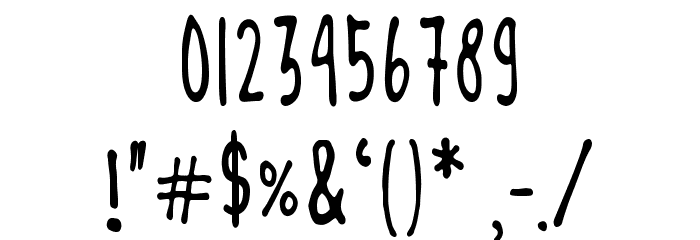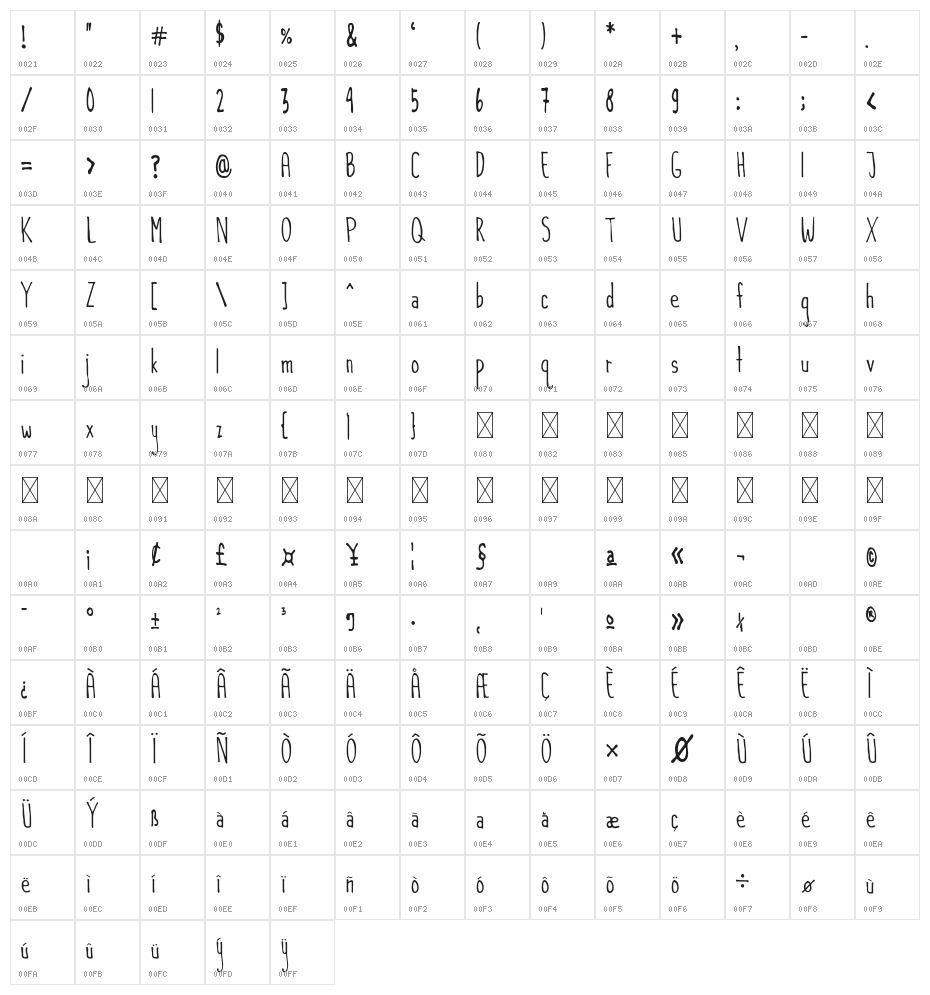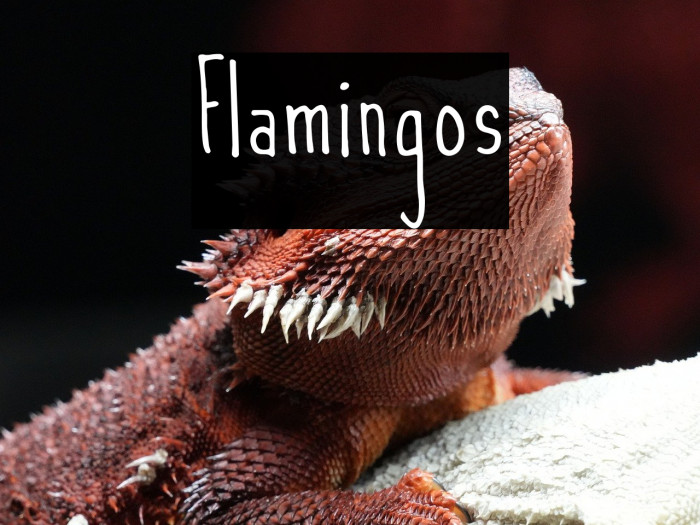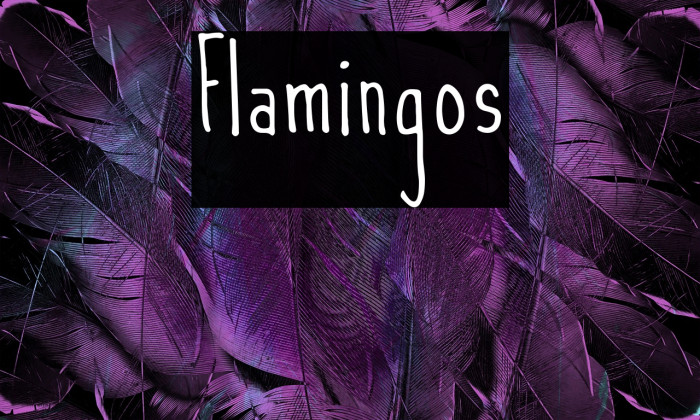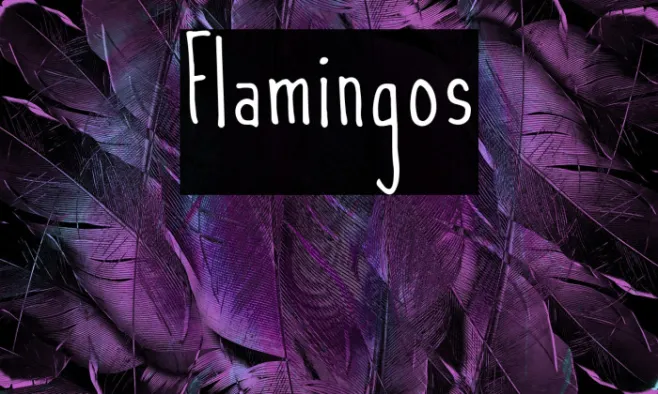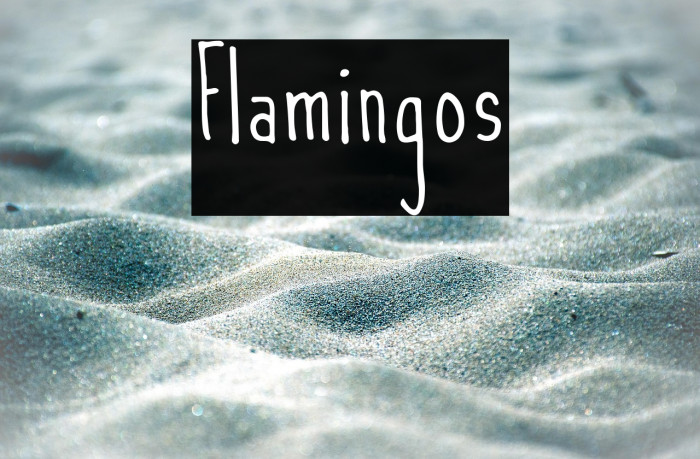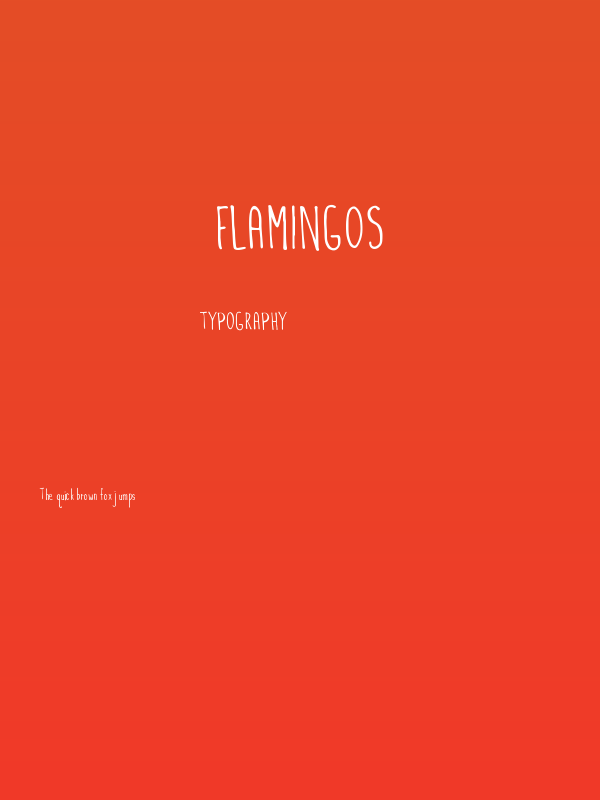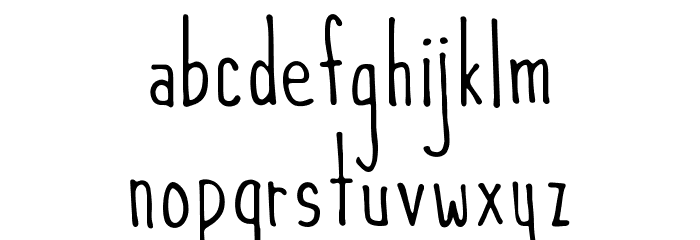
Flamingos Font
Flamingos Description
This font features a playful and whimsical style with a handwritten appearance. The letters are slightly irregular, giving it a casual and friendly vibe. The strokes are consistent in width, creating a uniform look across all characters. The uppercase letters are tall and narrow, while the lowercase letters maintain a similar height, contributing to a cohesive design. The numbers and special characters follow the same playful style, making it suitable for informal and creative projects. The overall design is approachable and versatile, perfect for adding a personal touch to any text.
| Proposed Projects | Ideal for greeting cards, children's books, playful branding, and social media graphics. |